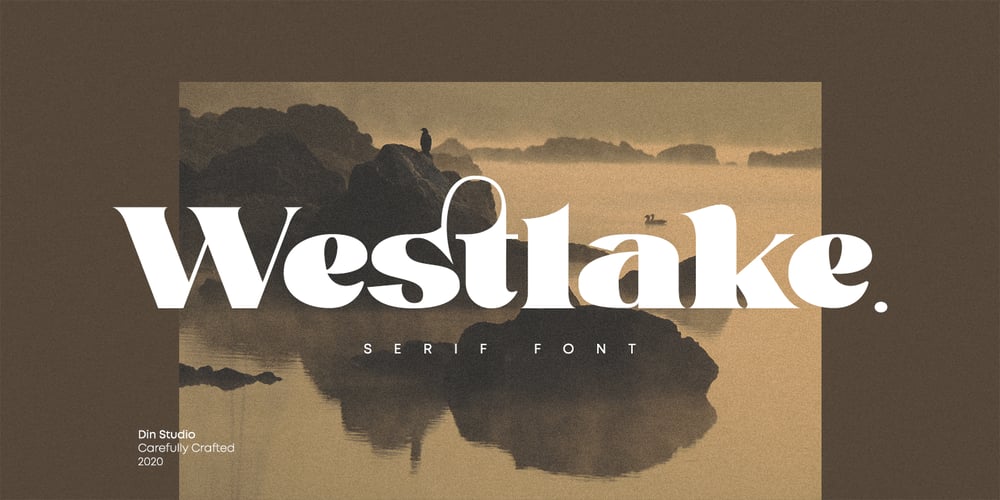
Westlake Font Family was designed by Donis Miftahudin and published by Din Studio. Westlake contains 1 styles and family package options. Westlake is a serif font. Made for any professional project branding. It is the best for logos, branding and quotes. Every letter has a unique and beautiful touch.Features: Standard Ligatures Swashes Stylistic Sets PUA Encoded Multilingual Support Numerals and Punctuation Thank you for downloading premium fonts from Din Studio